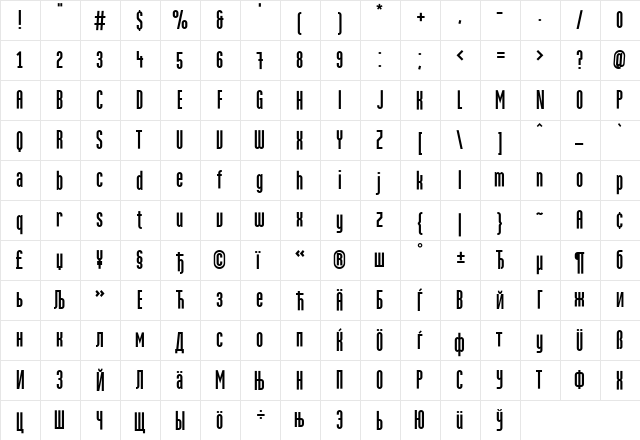
MartenCyrG Medium
Design Context for MartenCyrG Typeface
MartenCyrG is a composed and adaptable typeface that performs quietly and consistently across a wide range of design contexts.